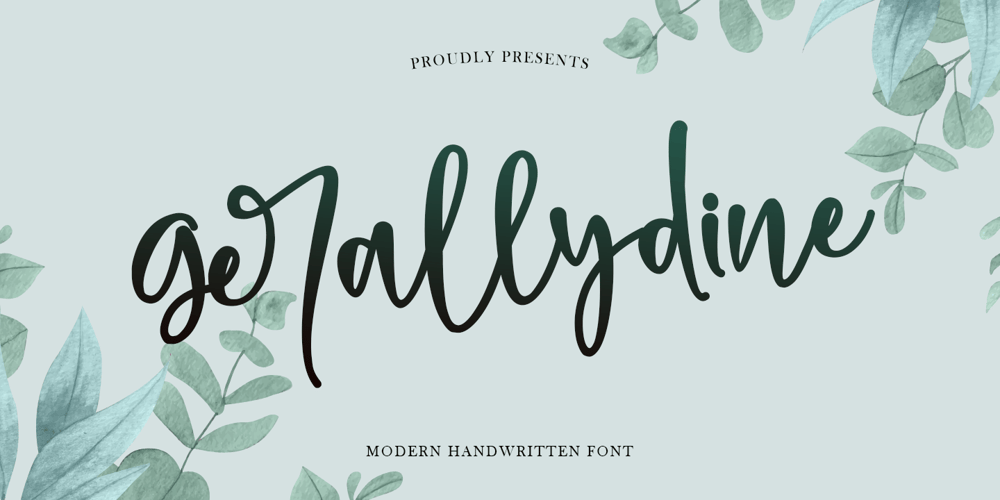
Gerallydine Font Family was designed by Thomas Aradea and published by Stefani Letter. Gerallydine contains 2 styles and family package options. Gerallydine is a beautiful handwritten font that will effortlessly add a perfect look to any craft! Your imagination and this font will make a perfect combination. Get inspired by its unique charm and create amazing greeting cards, Weddings, books, logos, stationery, and much more! This font is PUA encoded which means you can access all of the cute glyphs with ease! It also features a wealth of including ligatures.